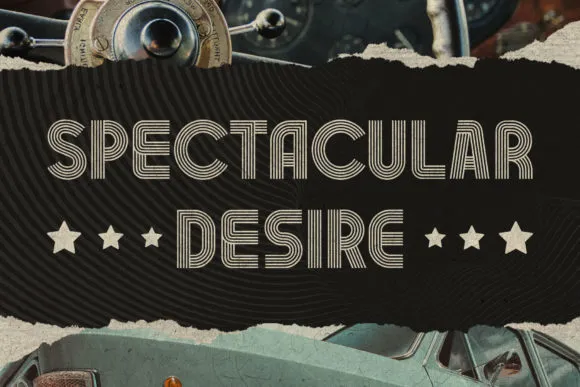
The Rambors Nostalgic Font
The Rambors Nostalgic Font, a multiline show textual style propelled by the 70s plan which envisions a modern touch and fun realistic. An exceptionally nostalgic typeface, ideal for your cutting edge modern plan and contemporary style.
Rambors is looks exceptionally snappy on titles in your banner, flyer, movement realistic, and sticker.
The Rambors Nostalgic Font is an all-covers text style with various capitalized and lowercase, it provides you with a ton of potential outcomes to investigate numerous options of plan. Likewise finished with substitutes characters.